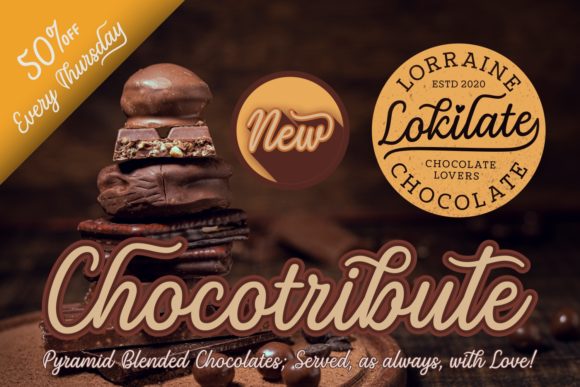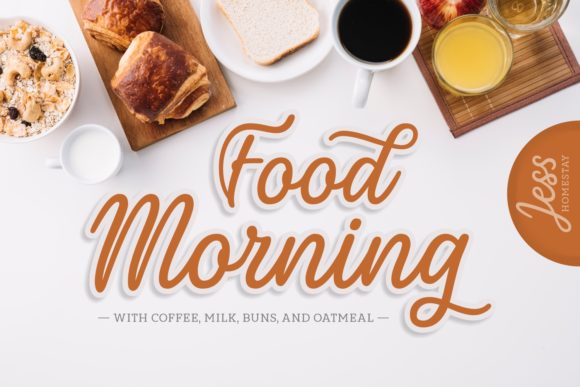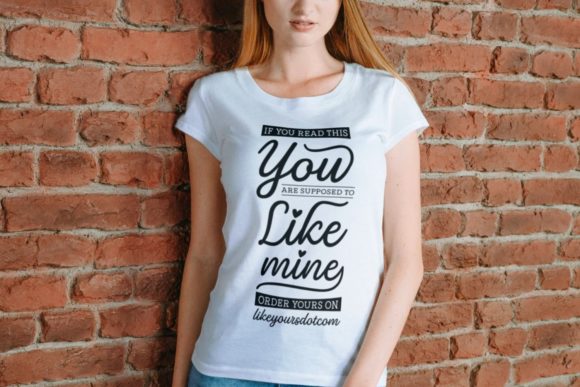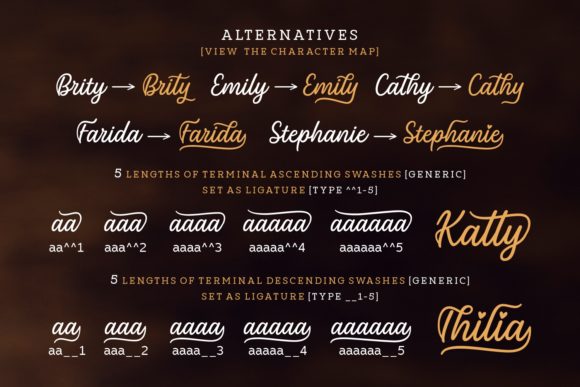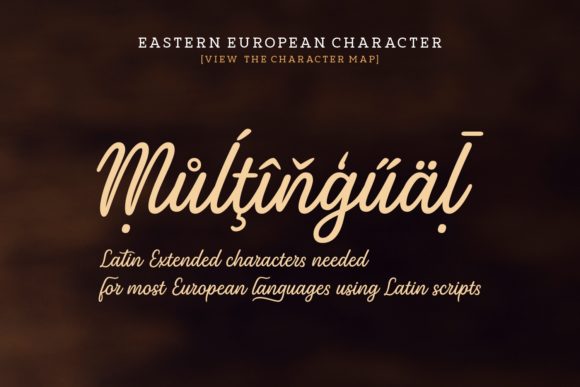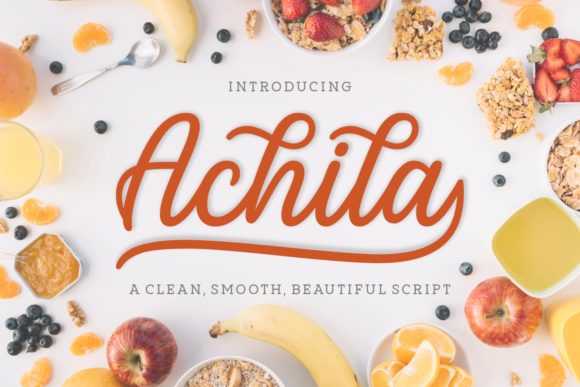
Achila Font: The Sweet and Cool Design Idea with a Bold Vibe
Achila Font is a design concept that embodies the perfect blend of sweetness and coolness, making it a bold and eye-catching addition to any creative project. This innovative font style has the power to transform any design idea into a true piece of art, leaving a lasting impression on the audience. In this article, we’ll dive into the world of Achila Font, exploring its unique features, benefits, and uses, as well as provide valuable insights for designers and crafters looking to elevate their work.
The Origins of Achila Font
Achila Font is a carefully crafted design concept that originated from the need to create a distinctive and attention-grabbing typography style. The creators of Achila Font aimed to develop a font that would not only be aesthetically pleasing but also convey a sense of boldness and confidence. Through meticulous research and design expertise, Achila Font was born, offering a fresh and exciting alternative to traditional font styles.
Key Features of Achila Font
Achila Font boasts several key features that make it an attractive choice for designers and crafters. Some of its notable characteristics include:
- Bold and Edgy: Achila Font has a bold and edgy vibe that adds a touch of sophistication to any design project.
- Sweet and Cool: The font’s sweet and cool design elements make it perfect for projects that require a friendly and approachable tone.
- Highly Versatile: Achila Font is highly versatile, making it suitable for a wide range of design applications, from logos and branding to posters and social media graphics.
- Easily Customizable: The font is easily customizable, allowing designers to experiment with different styles, colors, and effects to achieve their desired look.
Benefits of Using Achila Font
The benefits of using Achila Font are numerous, making it an excellent addition to any designer’s toolkit. Some of the advantages of using Achila Font include:
- Unique and Memorable: Achila Font helps create unique and memorable designs that stand out from the crowd.
- Time-Efficient: The font’s versatility and customizability save designers time and effort, allowing them to focus on other creative aspects of their project.
Design Ideas Using Achila Font
Achila Font can be used in a variety of design projects, from creative branding and advertising to digital art and crafting. Here are some inspiring design ideas to get you started:
- Logo Design: Use Achila Font to create bold and eye-catching logos that make a lasting impression.
- Social Media Graphics: Achila Font is perfect for creating engaging social media graphics, such as Facebook posts, Instagram stories, and Twitter headers.
- Poster Design: Add a touch of sophistication to your posters with Achila Font, making them perfect for advertising, events, or promotional materials.
- Digital Art: Experiment with Achila Font in digital art projects, such as illustrations, paintings, or mixed media designs.
Tips and Tricks for Working with Achila Font
To get the most out of Achila Font, here are some valuable tips and tricks to keep in mind:
- Experiment with Colors: Try out different color schemes and combinations to find the perfect match for your design.
- Play with Styles: Achila Font offers various style options; experiment with different styles to find the one that suits your project best.
- Mix and Match: Combine Achila Font with other fonts or design elements to create a unique and visually appealing design.
Achila Font is a game-changing design concept that offers a perfect blend of sweetness and coolness, making it a bold and eye-catching addition to any creative project. With its versatility, customizability, and unique features, Achila Font is an excellent choice for designers and crafters looking to elevate their work. Whether you’re a seasoned designer or just starting out, Achila Font is sure to inspire and transform your design ideas into true pieces of art.